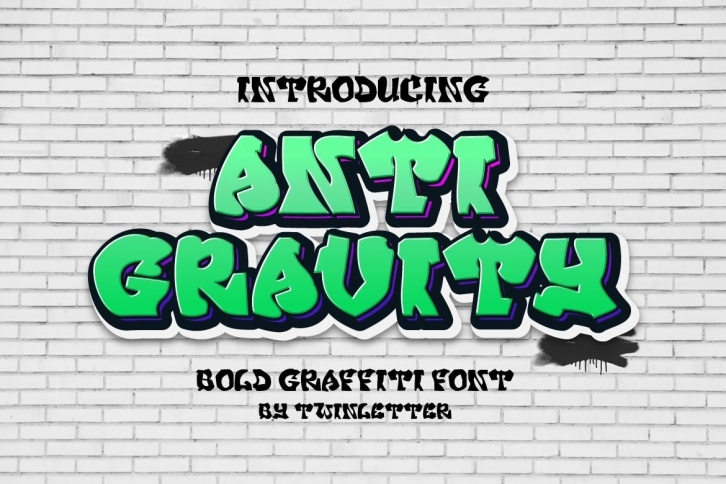
Anti Gravity is an awesome, graffiti-styled display font that has a cartoon-like vibe. This font is suitable for designs such as t-shirts, sportswear, logos, advertisements, clothing, and more.